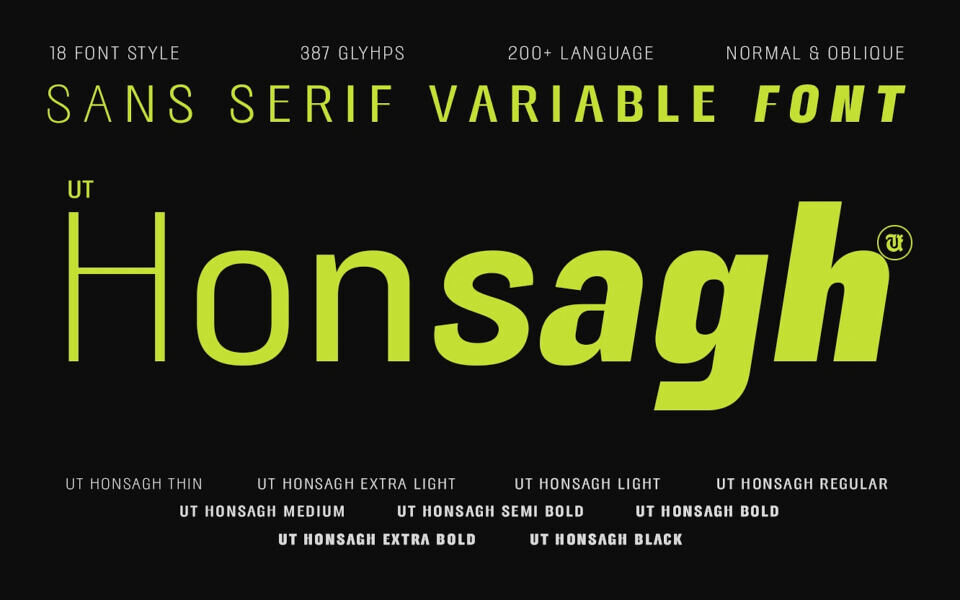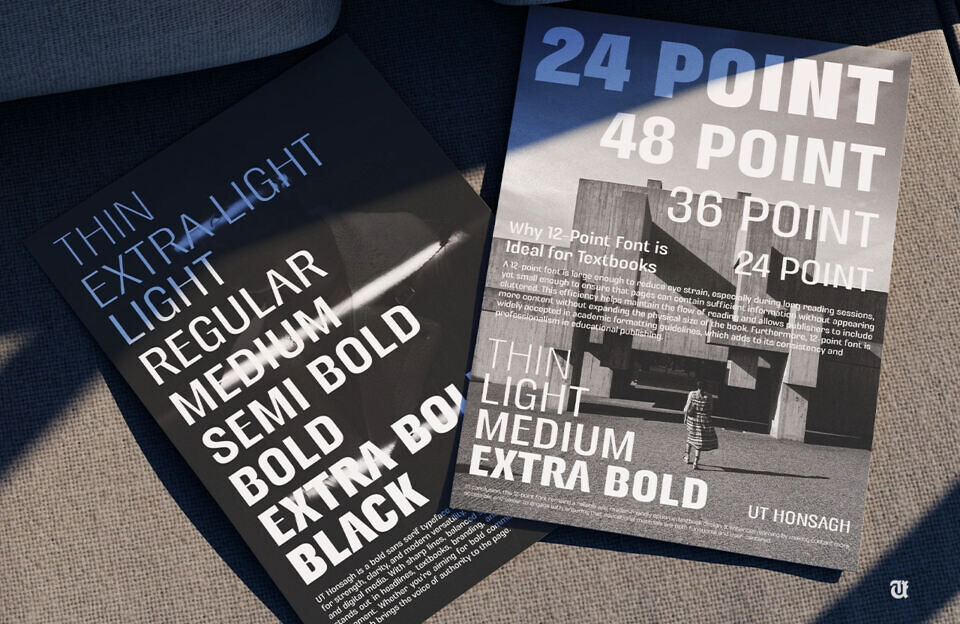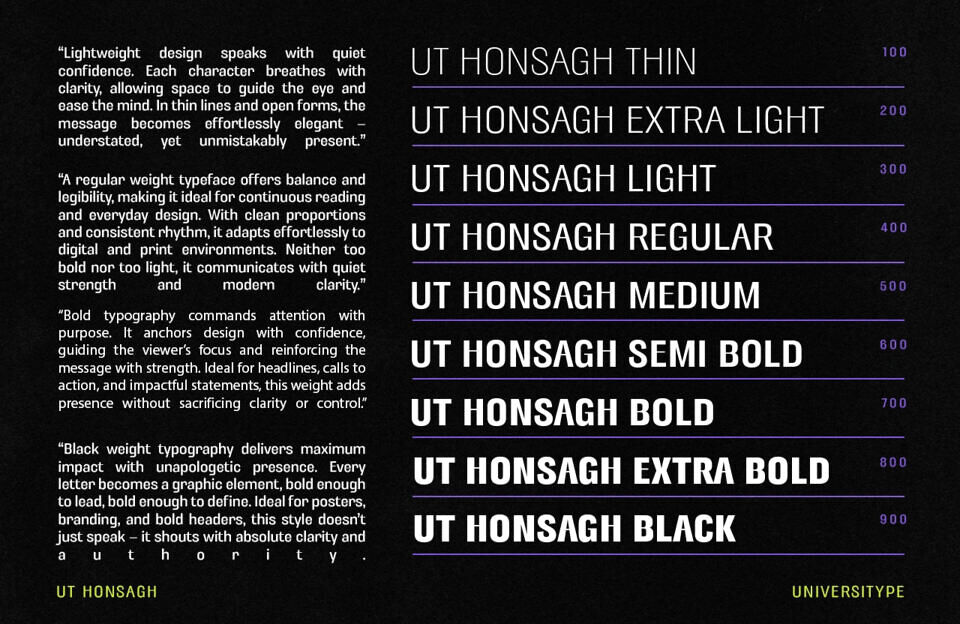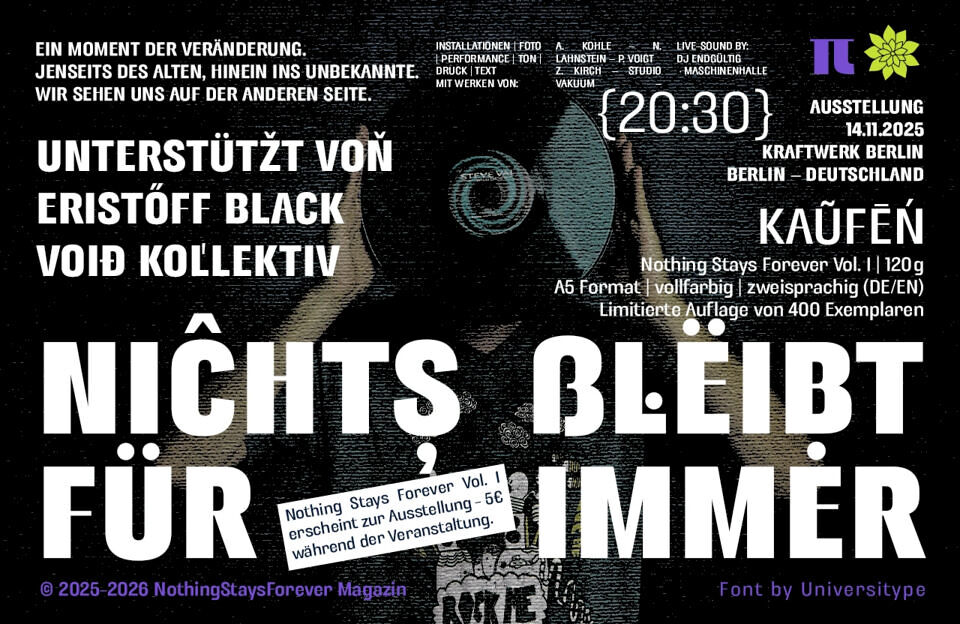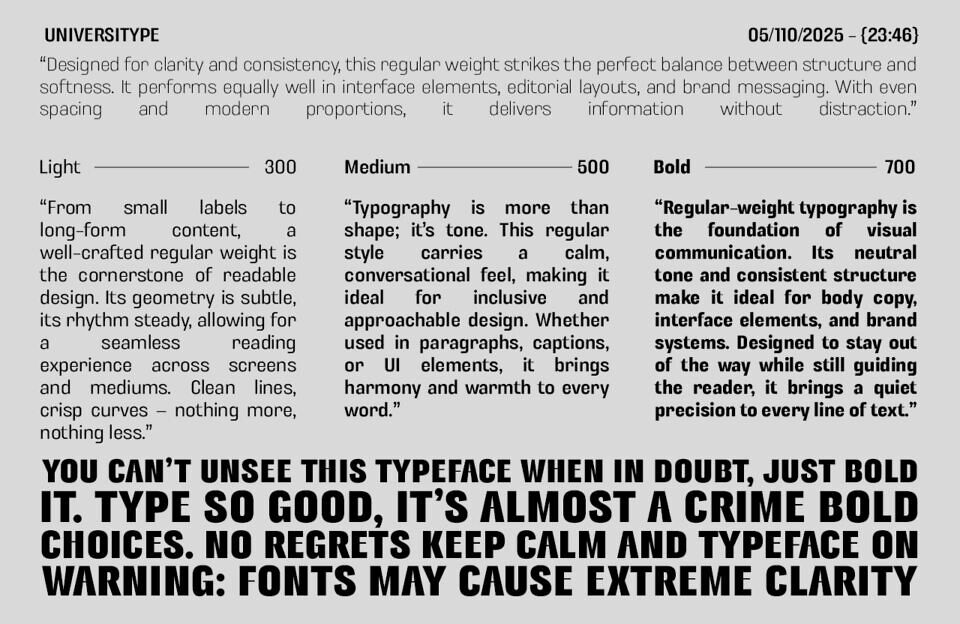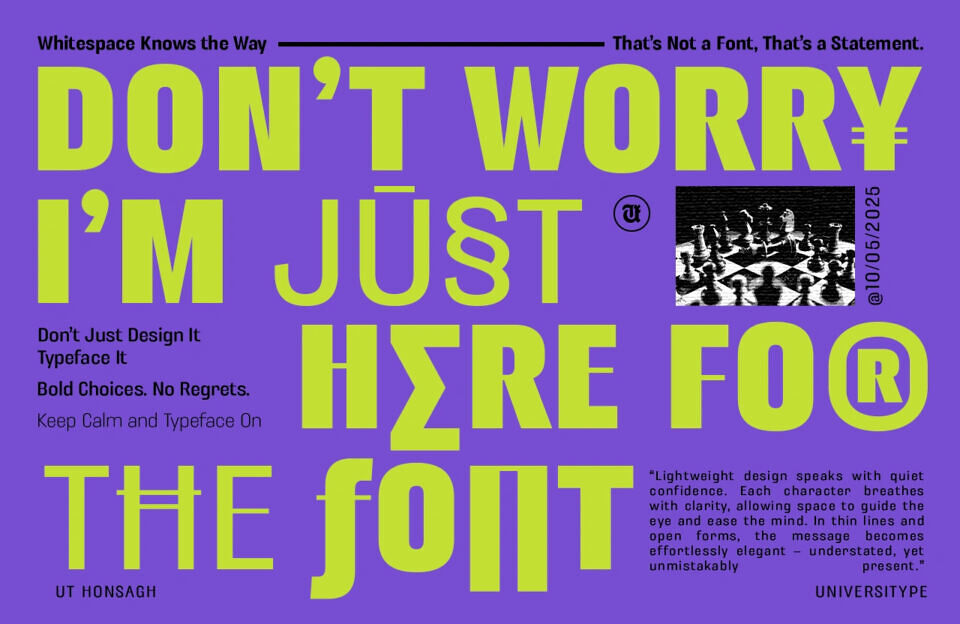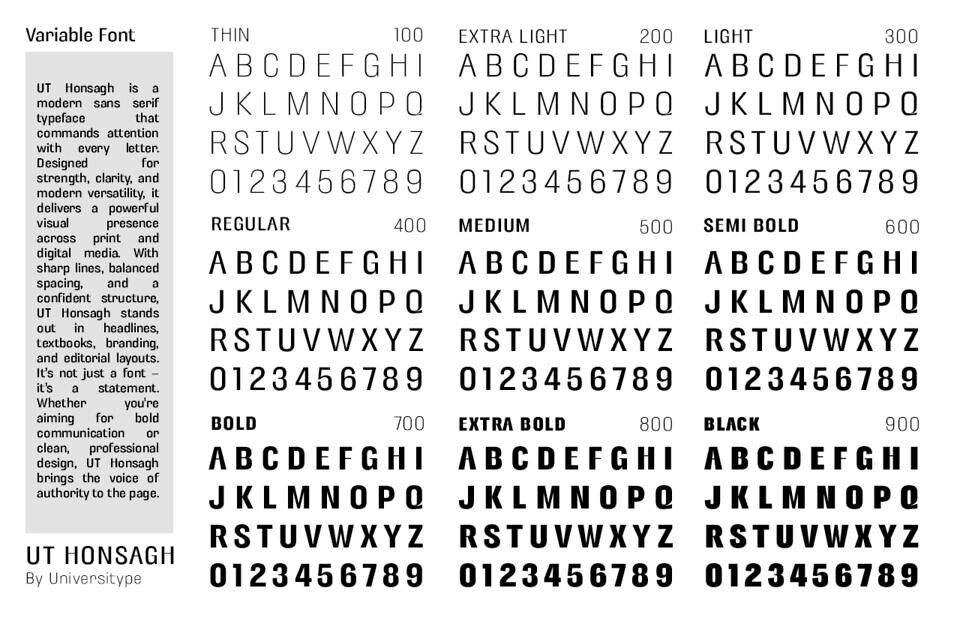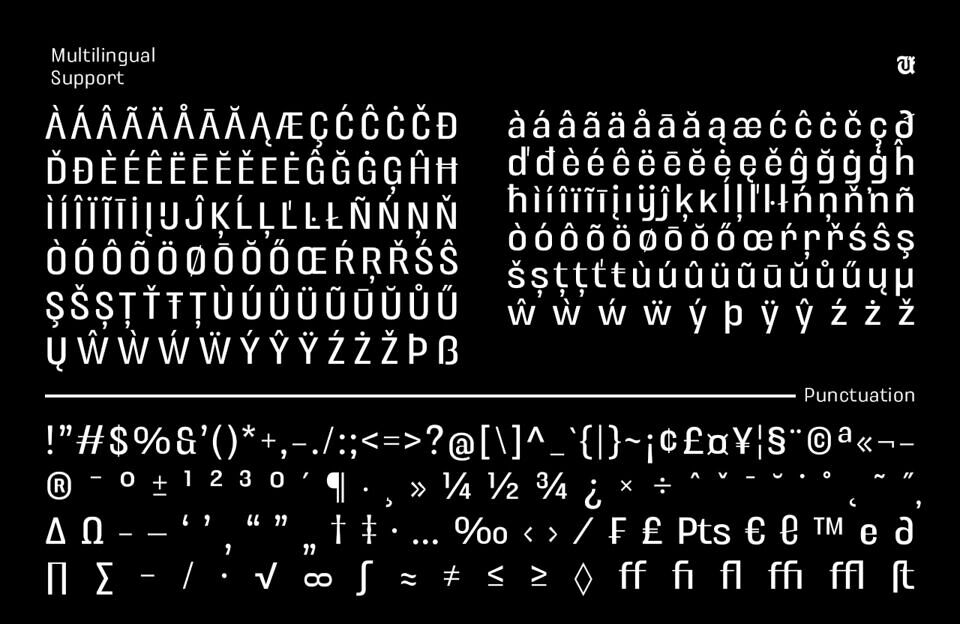
UT Honsagh is a modern sans serif variable font designed for clarity, power, and adaptability. With 18 meticulously crafted styles, including both normal and oblique versions, this font family spans from Thin (100) to Black (900), offering you unmatched control over weight, contrast, and tone.
Whether you’re designing for digital interfaces, print media, or bold branding statements, UT Honsagh delivers with precision and personality.